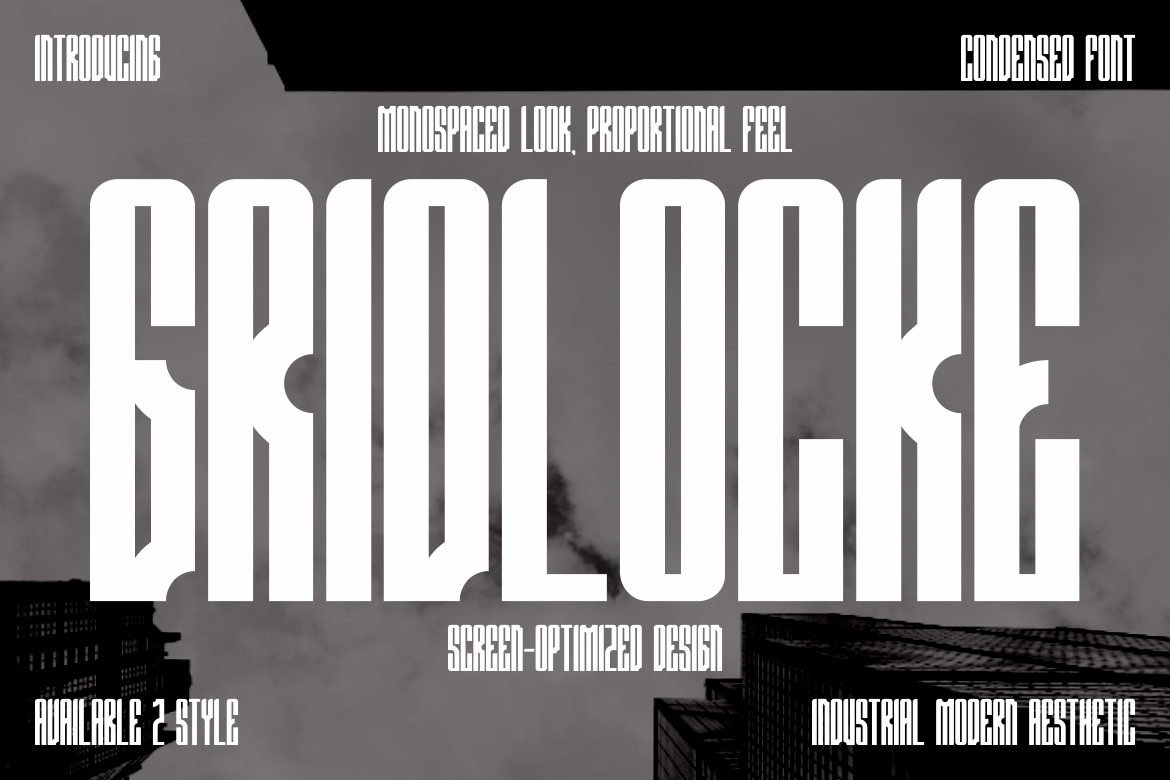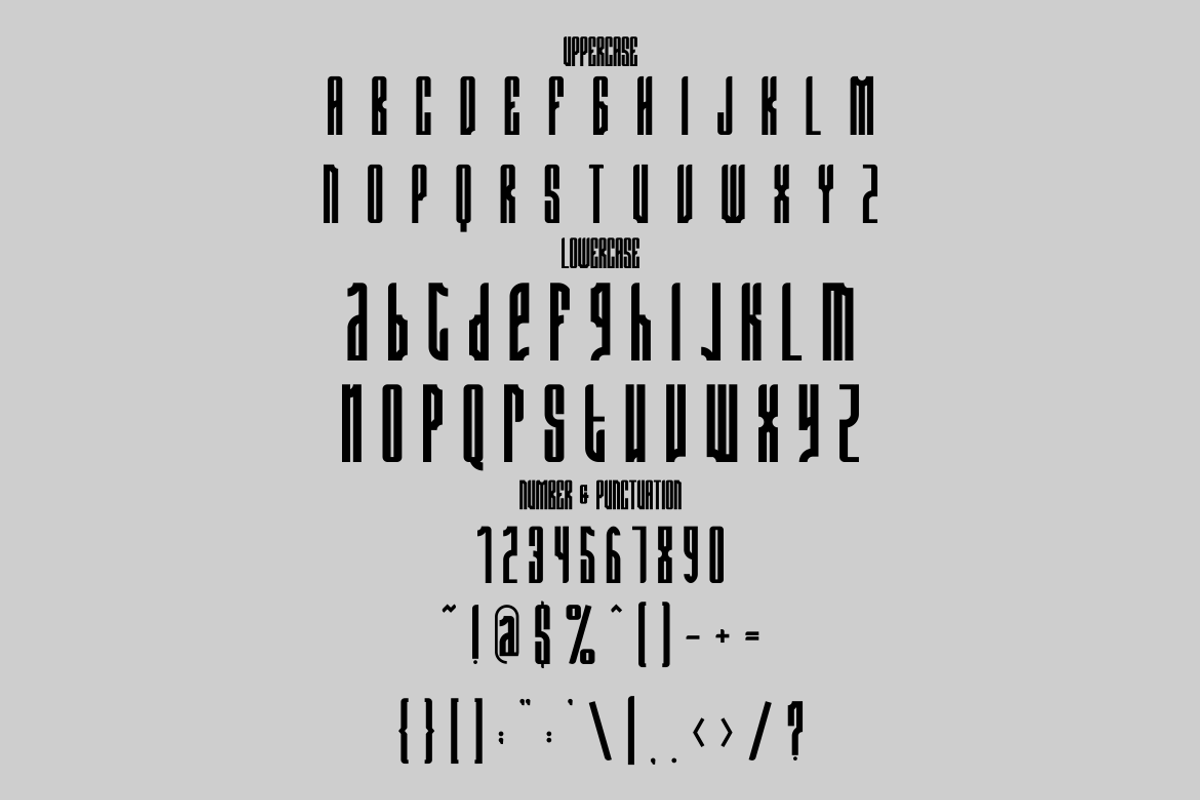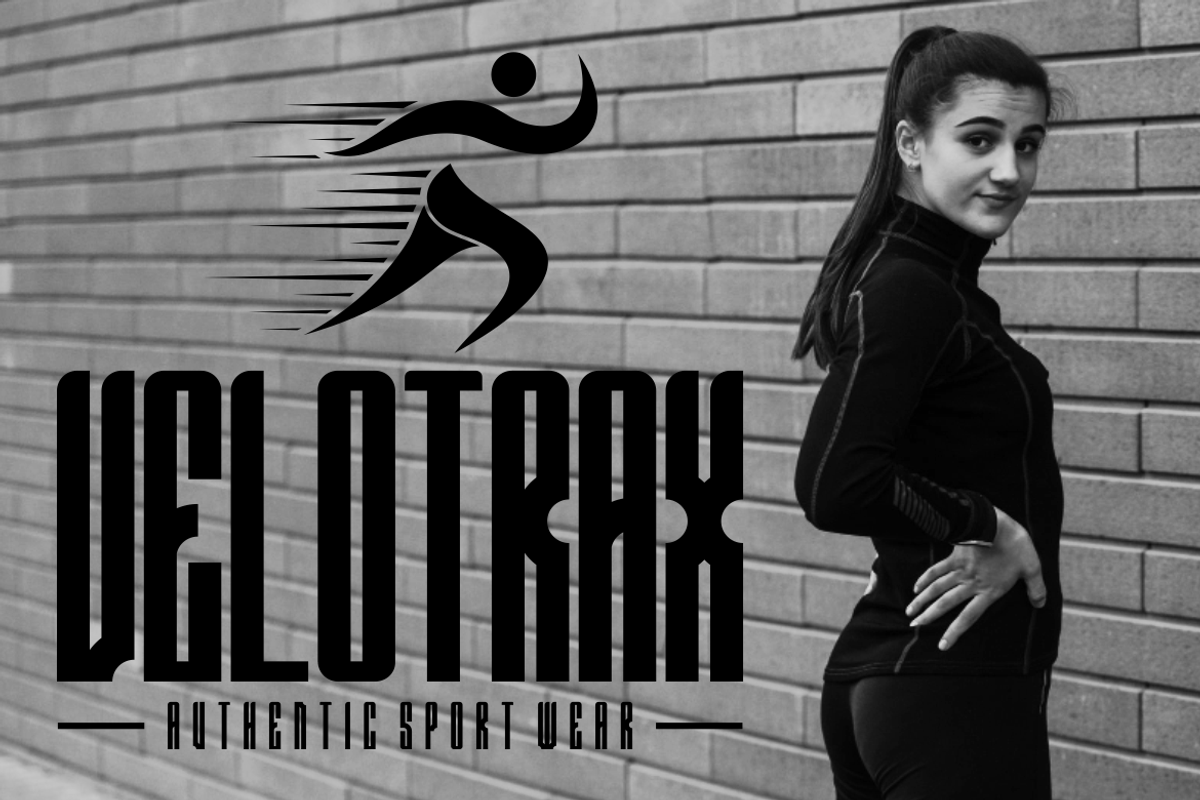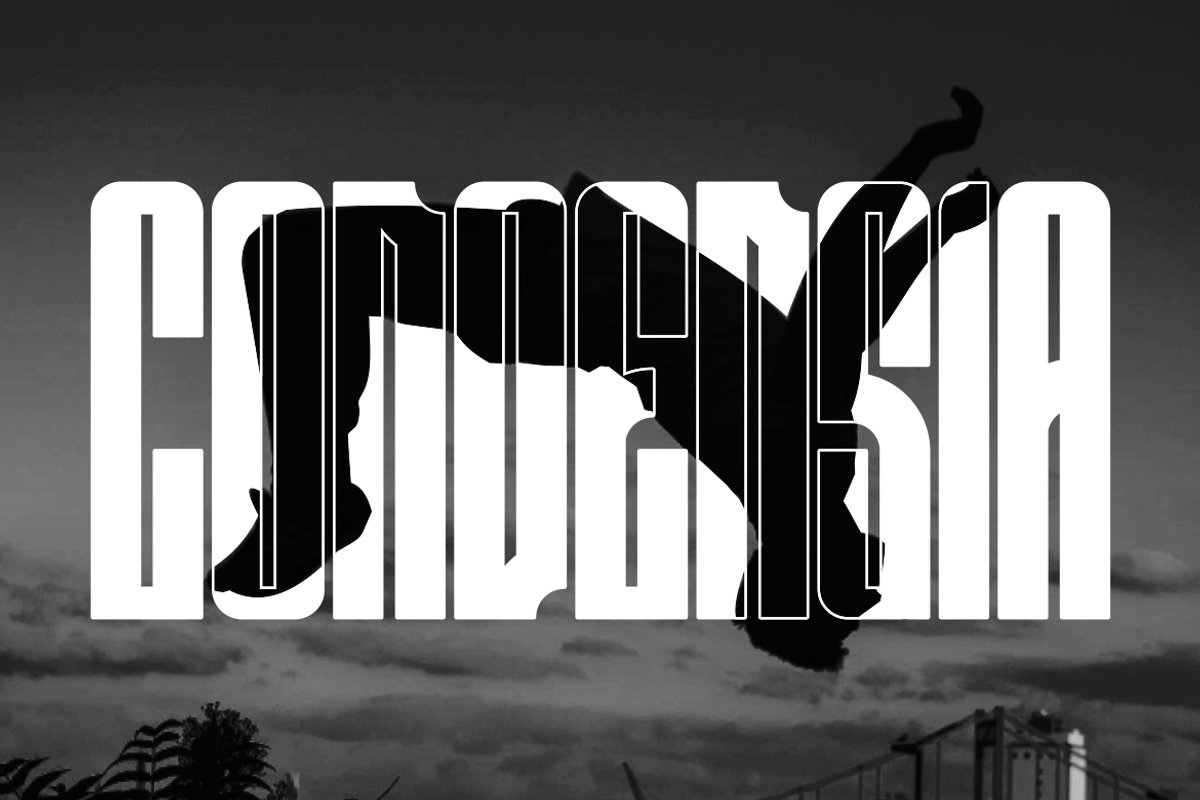
Grid Locke Condensed Font
Grid Locke Condensed Font is a bold display typeface built for impact and modern clarity. Each letter is designed with extreme height and condensed proportions, giving it an industrial yet elegant appearance. The font’s sharp vertical structure delivers a monospaced feel while retaining proportional balance, making it both versatile and striking. With a sleek design optimized for screens, it commands attention in digital layouts and print media alike. Its geometric rhythm and clean edges ensure legibility without sacrificing style, making it ideal for projects that demand bold statements.
Perfect for modern branding, fashion labels, packaging, or editorial layouts, Grid Locke creates a sense of authority and sophistication. It works seamlessly in posters, magazine titles, business identities, and even cinematic designs. The condensed form allows for maximum word density while keeping compositions sharp and powerful. Whether you’re designing a logo, headline, or cover, Grid Locke Condensed Font injects a strong visual identity into your creative work, combining elegance with industrial strength.